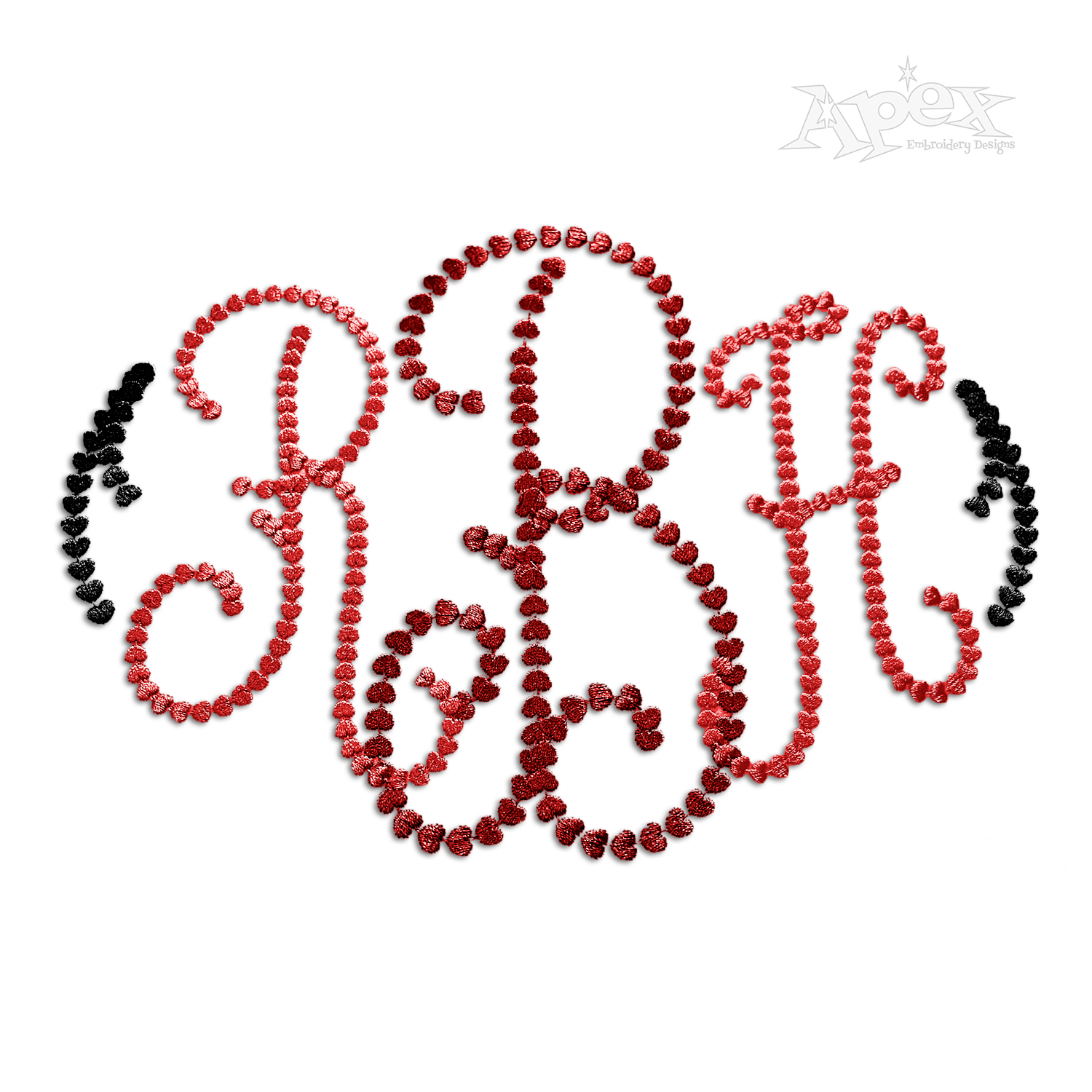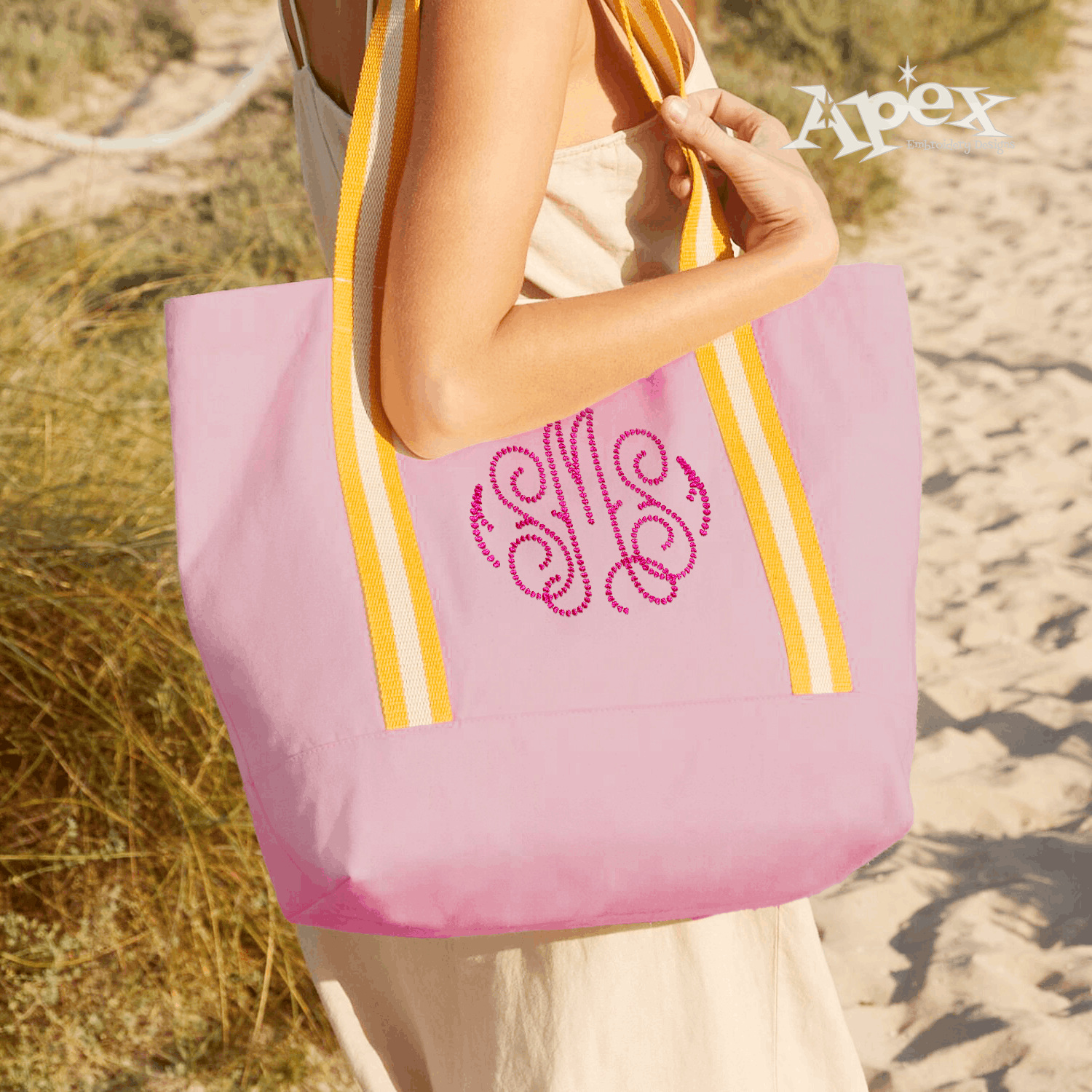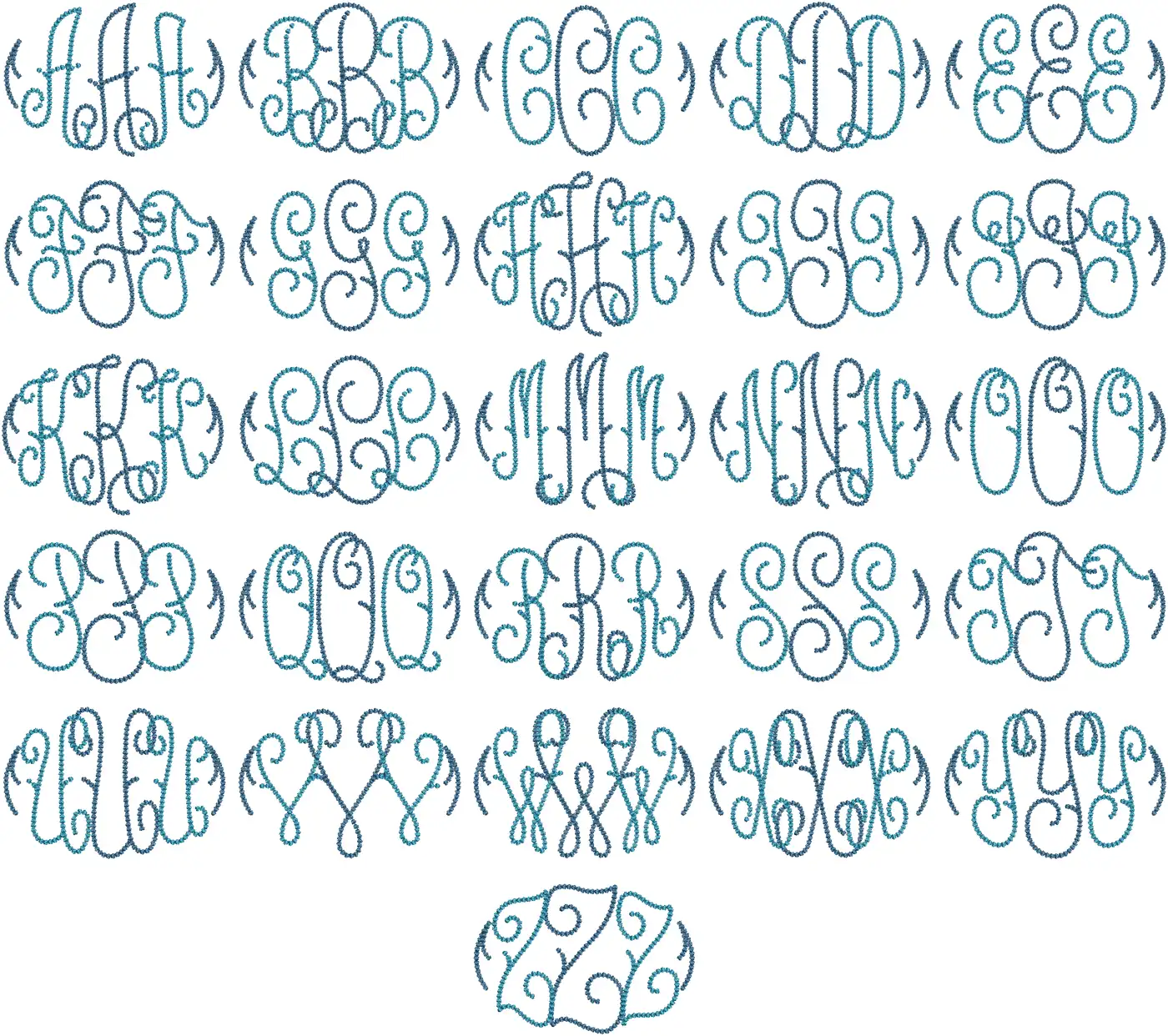
Mia Dotty Heart Monogram Embroidery Font
Create clean and stylish lettering projects with this Tiny Heart Monogram Embroidery Font. Heart Polka Dot pattern monogram alphabet is designed for machine embroidery and is perfect for personalized initials, names, monograms, gifts, apparel, home décor, and custom sewing projects.
Font Features
- Polka Dots monogram machine embroidery font
- Alphabet lettering sewing pattern
- Great for initials, names, and custom text
- Clean stitched texture for a polished monogram look